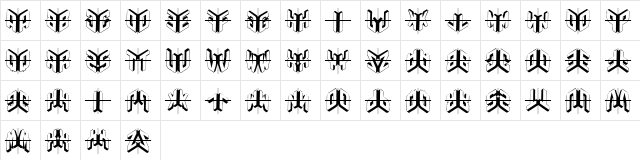
DuploSketchesPlus Regular
Design Context for DuploSketchesPlus Typeface
DuploSketchesPlus is a composed and adaptable typeface that performs quietly and consistently across a wide range of design contexts.